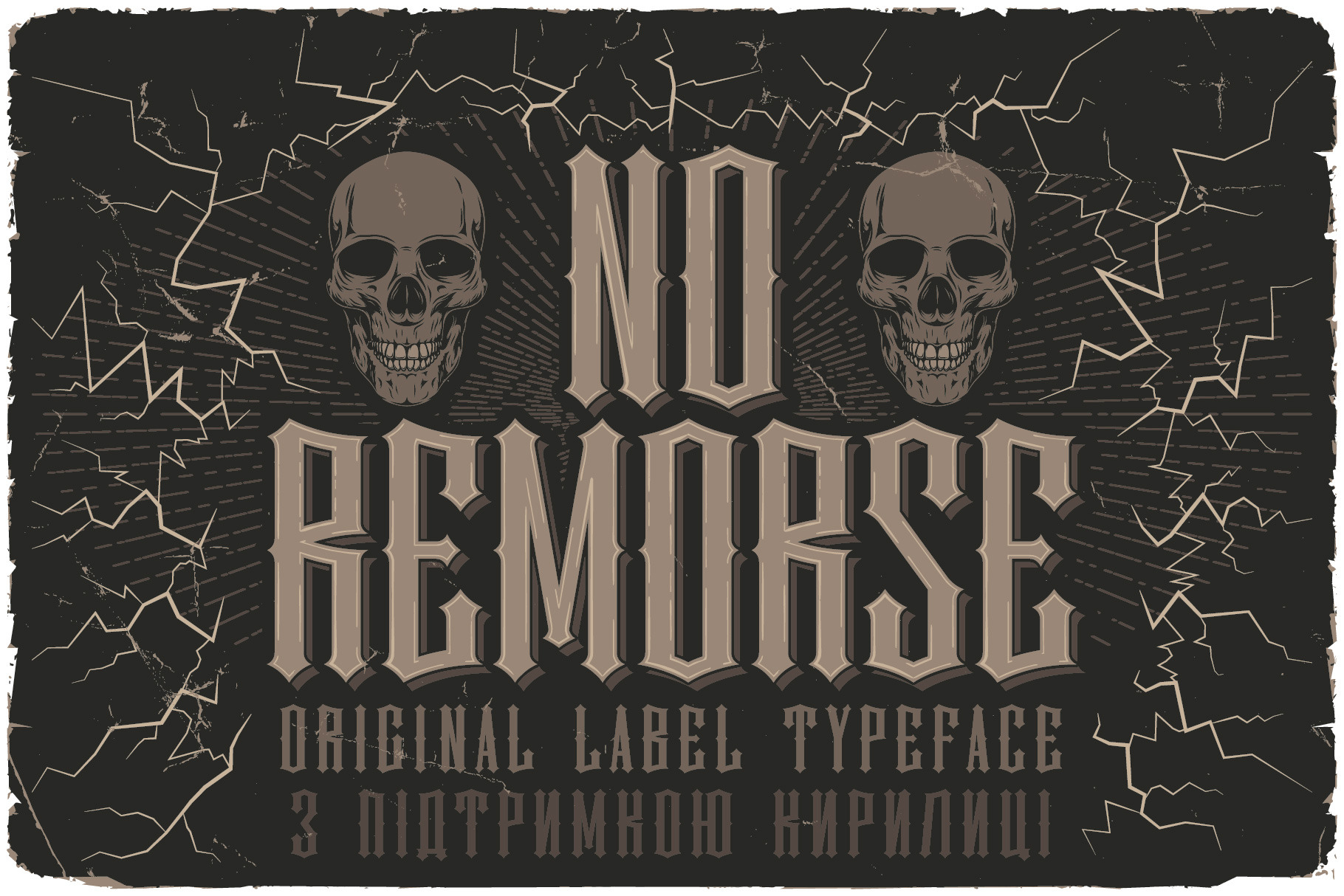
No Remorse Label Font
Introducing vintage label font named No Remorse. This font has a multilungual and cyrillic characters support (check out all available characters on previews). The font family has six styles: Regular, Inline, Shadow, Inline FX, Shadow FX and Aged. This font will look good on any vintage styled designs like a poster, T-shirt, label, logo, etc.
- A lot of additional symbols and multilingual support.
- Layered font - shadow and inline effects are separate font style